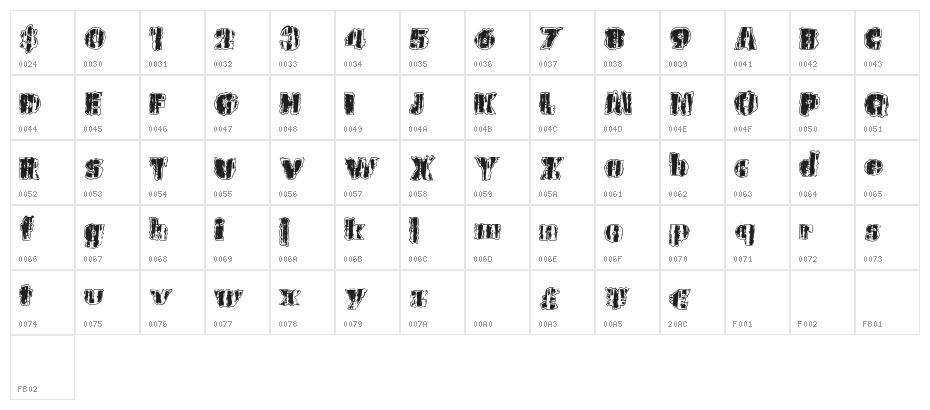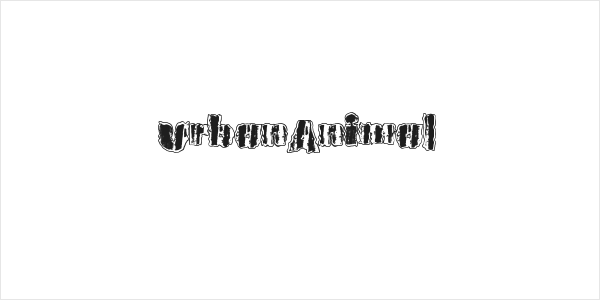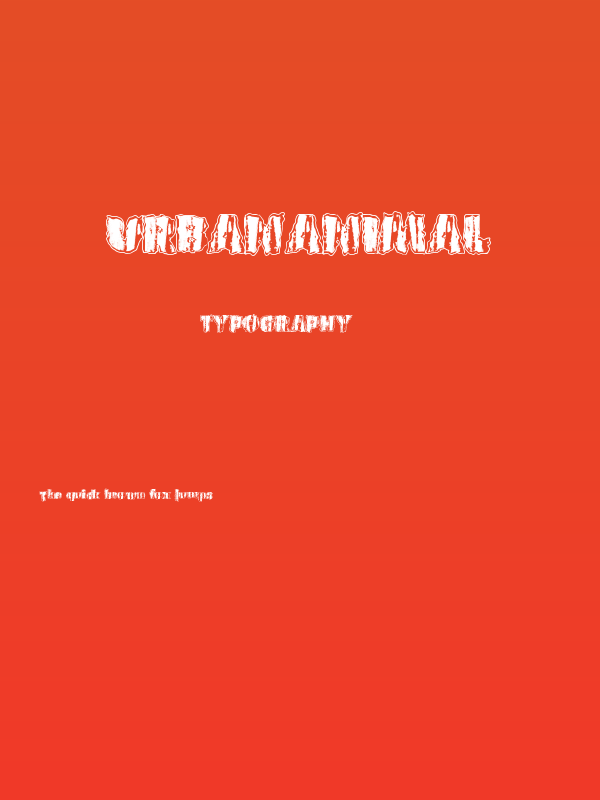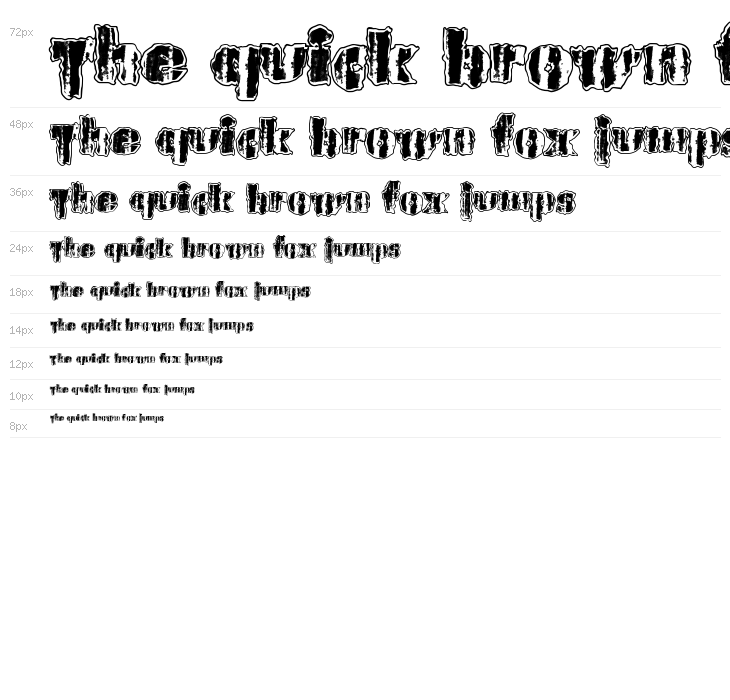
UrbanAnimal Font
UrbanAnimal Description
This font features a rugged, distressed style that gives it a bold and edgy appearance. The characters are heavily textured, resembling a worn or eroded surface, which adds a sense of depth and dimension. The uppercase and lowercase letters maintain a consistent design, with each character exhibiting unique irregularities that contribute to the overall grunge aesthetic. The numbers and special characters are equally stylized, ensuring a cohesive look across all glyphs. This font is ideal for projects that require a strong, impactful visual presence.
| Proposed Projects | Ideal for album covers, posters, urban-themed designs, and branding that requires a gritty, impactful look. |